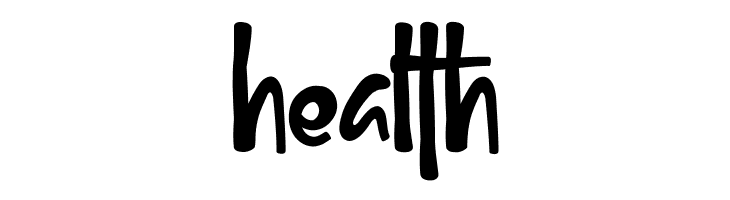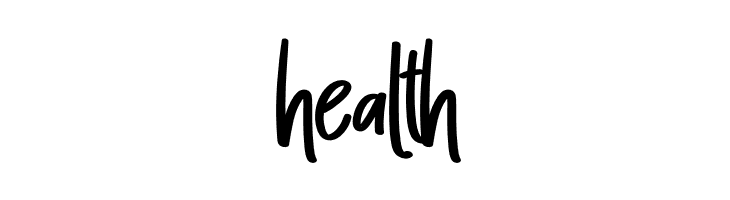
A lively and energetic script font with fluid, connected letterforms.
A modern classic font with elegant serifs and refined contrast, perfect for stylish designs.
A whimsical and elegant script font with flowing, interconnected letters.
Expressive handwritten script with a lively, informal style.
A decorative, thorny font with a gothic and edgy style.
A decorative, thorny, and italicized font with a bold and edgy appearance.
A whimsical, hand-drawn font with a playful and organic style.
A bold, angular font with a dynamic and geometric style.
A bold, edgy font with sharp, angular edges and a graffiti-inspired style.
A bold, modern font with thick, blocky characters perfect for impactful headlines.
A bold, gothic-inspired font with sharp, jagged edges and dynamic styling.
A bold, elegant script font with interconnected characters and a sophisticated style.
A dynamic and energetic script font with fluid, angular strokes.
A bold, playful font with rounded strokes and a three-dimensional outline.
A bold, playful italic font with a thick outline and rounded characters.
A fluid and elegant cursive font with a handwritten appearance.
A bold, modern sans-serif font with clean lines and a strong presence.
A lively and expressive script font with fluid, connected letterforms.
A bold, dynamic handwritten font with energetic brush-like strokes.
A flowing, elegant script font with a handwritten, artistic style.
A playful and elegant handwritten script font with dynamic strokes.
A modern, decorative script font with tall, flowing letterforms and playful swashes.
Playful handwritten font with a casual style.
Tall, whimsical handwritten script with playful curves.
A playful and elegant script font with fluid, cursive strokes.
A playful font with letters inside paw prints, perfect for fun and friendly designs.
A bold, playful, hand-drawn font with a casual and artistic feel.
A bold, playful, hand-drawn font with a casual and artistic style.
A bold, flowing script font with a modern and elegant style.
A bold, playful font with a cartoonish and whimsical style.
A playful, bold, and hand-drawn style font with a whimsical and dynamic appearance.
A high-contrast, modern-classic font with elegant elongated uppercase and creative lowercase letters.
A bold, playful handwritten font with a casual and friendly style.